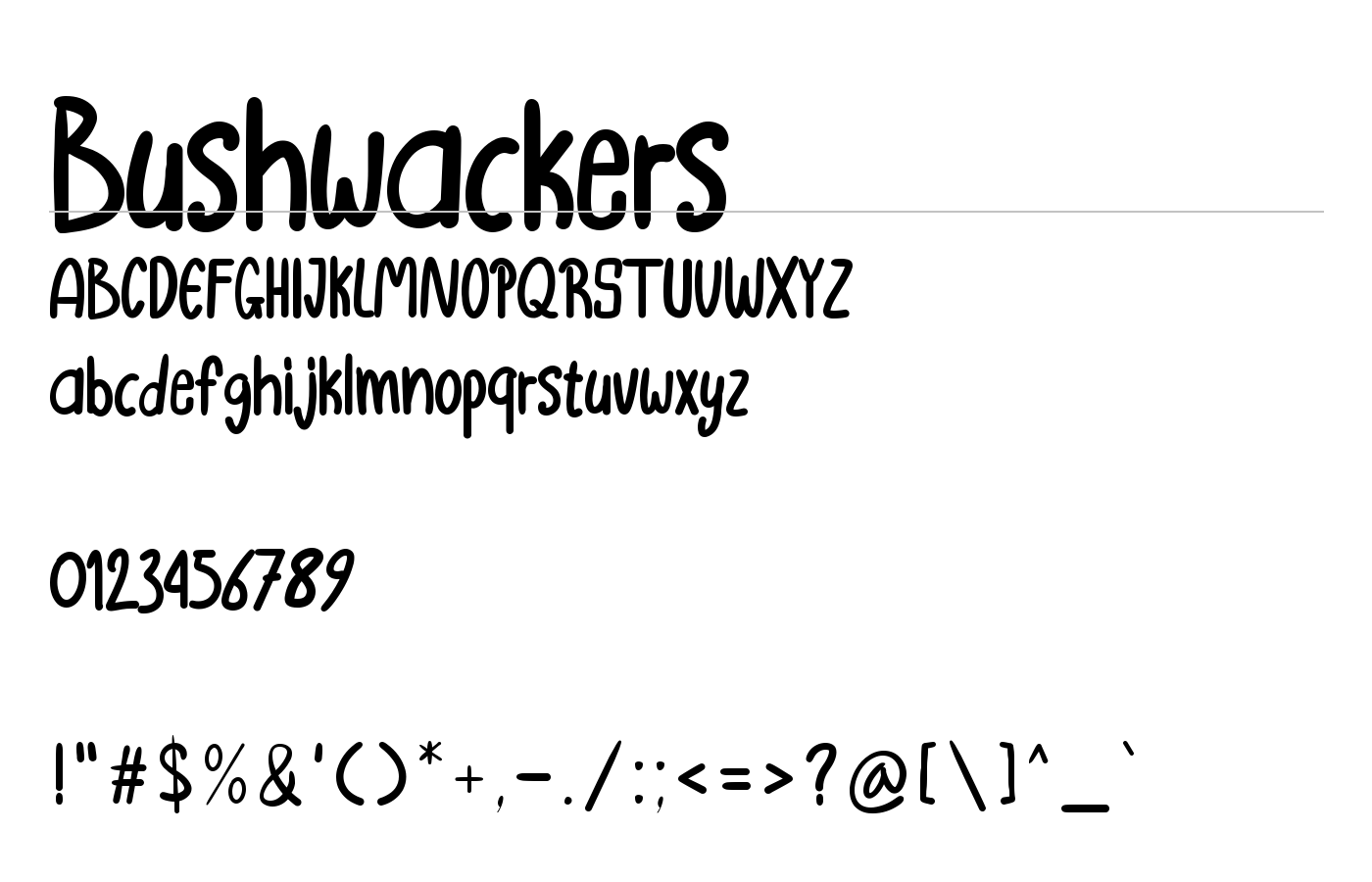
Bushwackers is a playful and casual handwritten sans serif font with a lively, uneven stroke style that adds personality and warmth. Its rounded letterforms and tall x-height create an approachable, friendly feel perfect for informal, fun designs like children’s books, invitations, or creative branding. This font works well for headlines and display use where a quirky, hand-drawn look is desired.
Bushwackers Font
About Bushwackers Font
| Font family | Bushwackers Font |
| Designer | Annisa Nur Afni |
| Trademark | Tuins Studio |